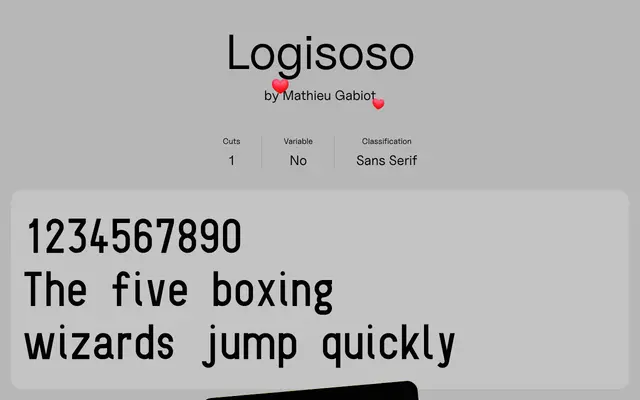
Logisoso
A single-cut sans-serif by Mathieu Gabiot, released under the SIL Open Font License for free commercial and personal use.
A single-weight sans-serif with no variable axis, designed by Mathieu Gabiot and distributed free under the SIL Open Font License 1.1. The family offers just one cut, suggesting a focused, utilitarian application rather than a broad editorial or branding system. Suitable for projects where a clean, no-frills sans is needed without licensing cost.
Classified as Sans Serif on the page; the name and minimal cut count suggest a geometric or technical sans-serif design.